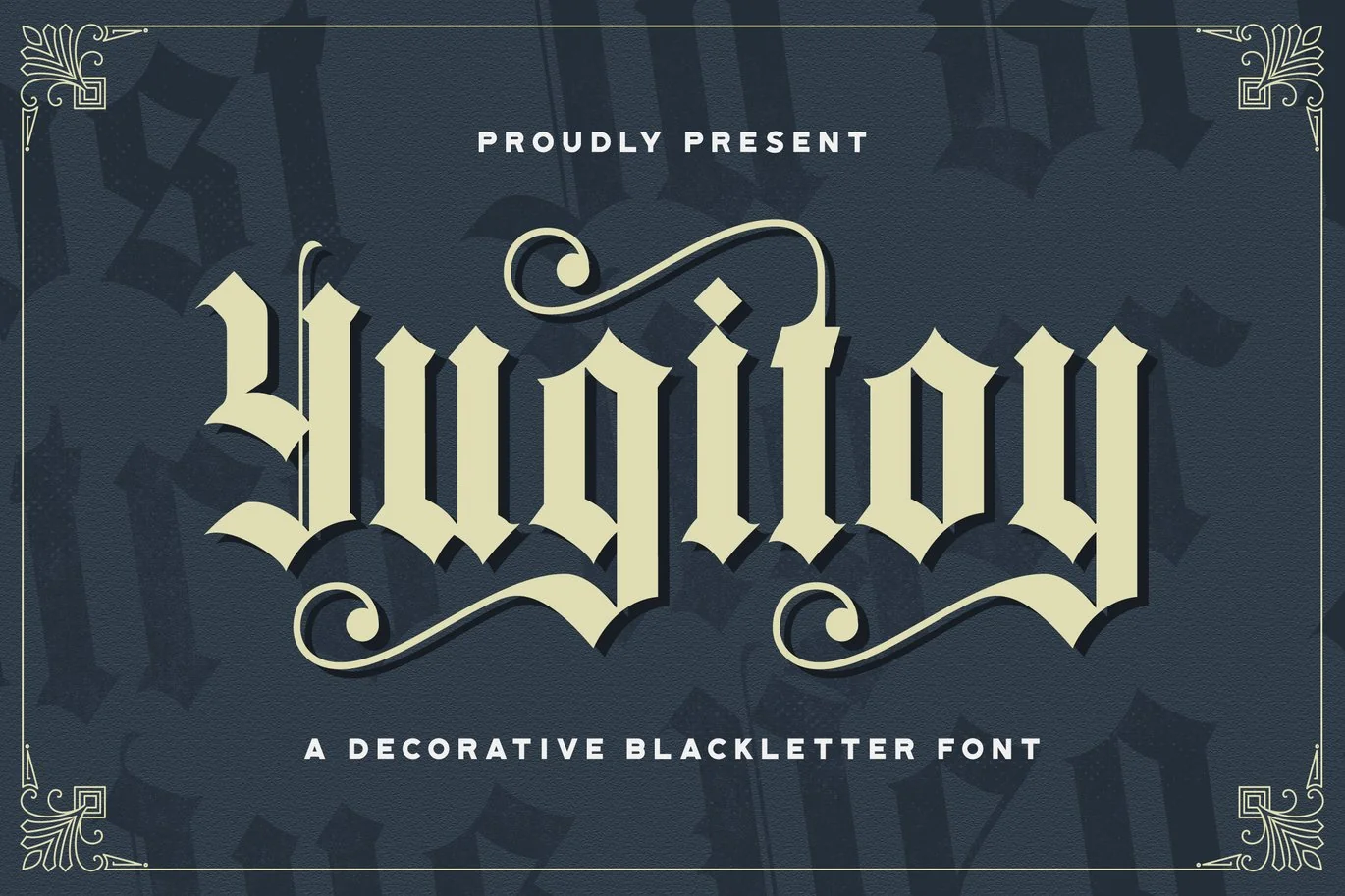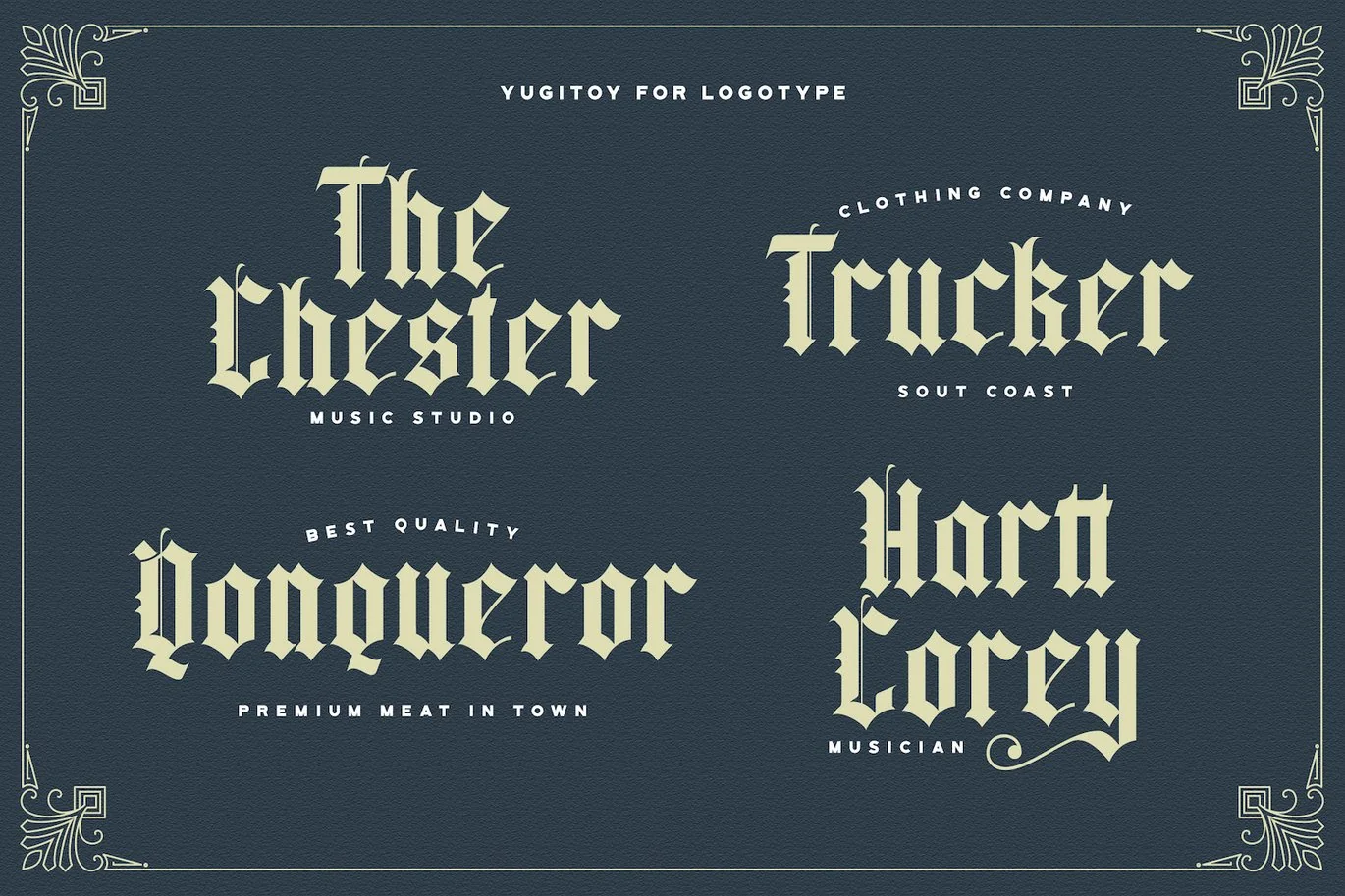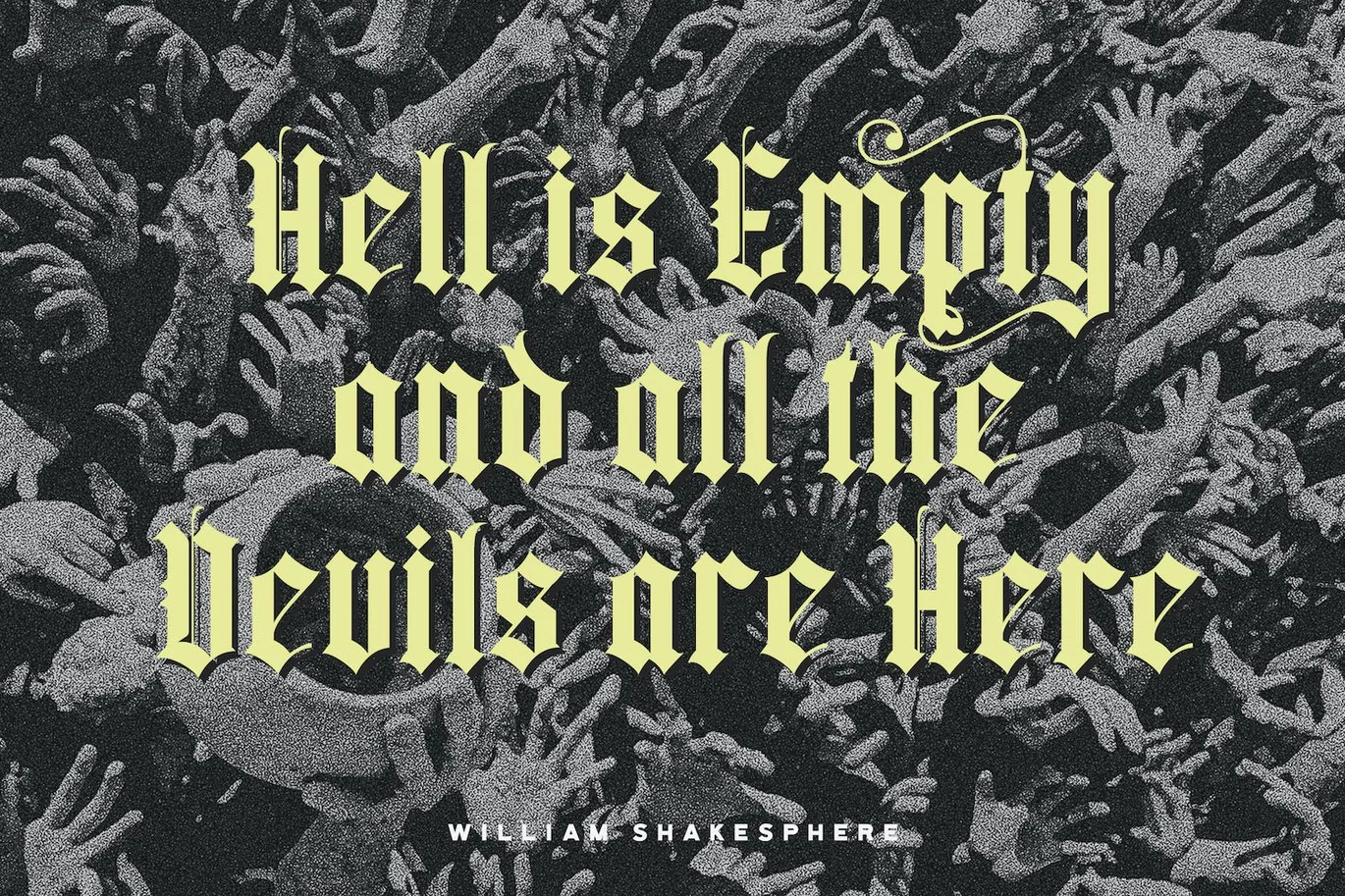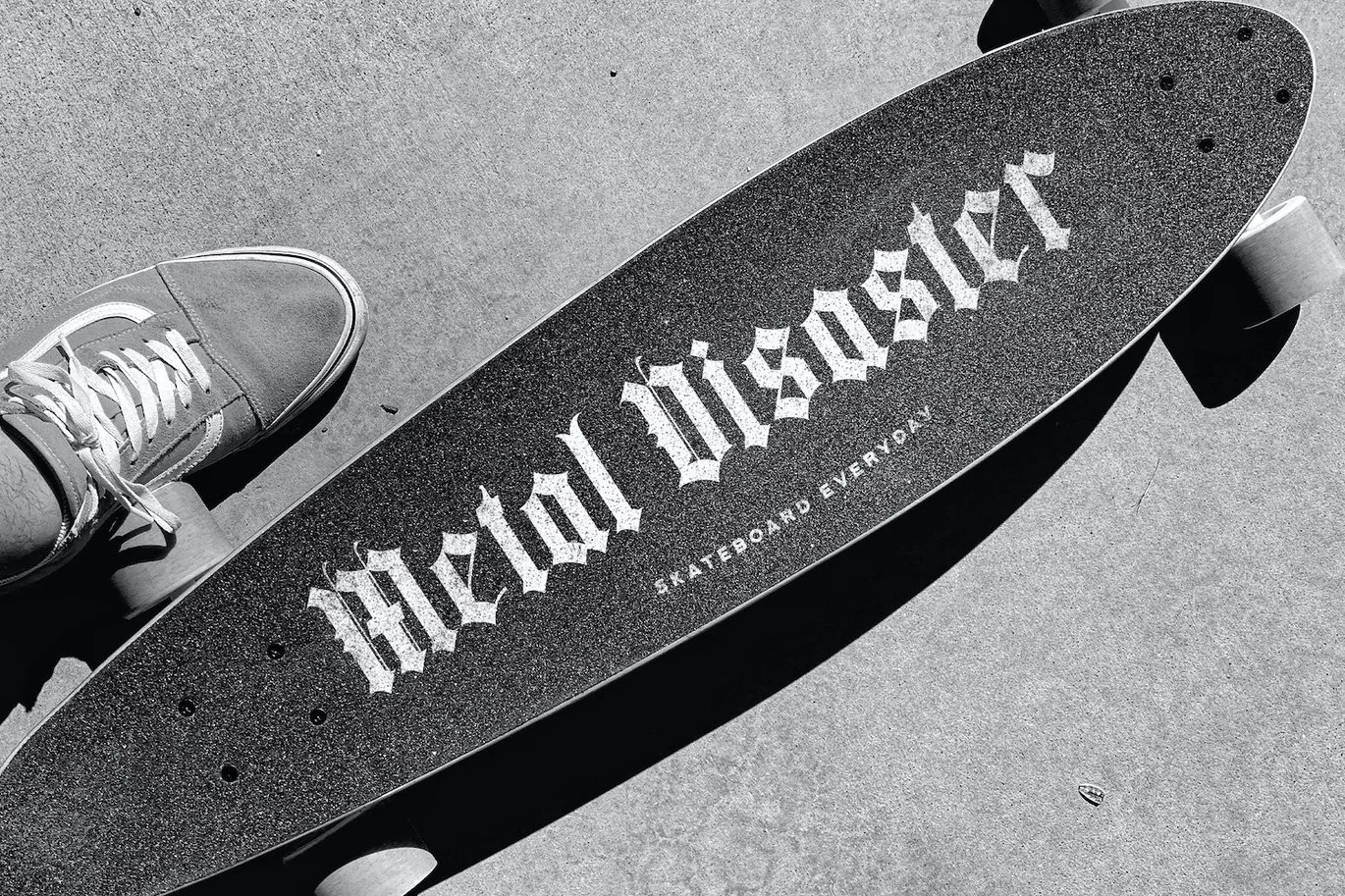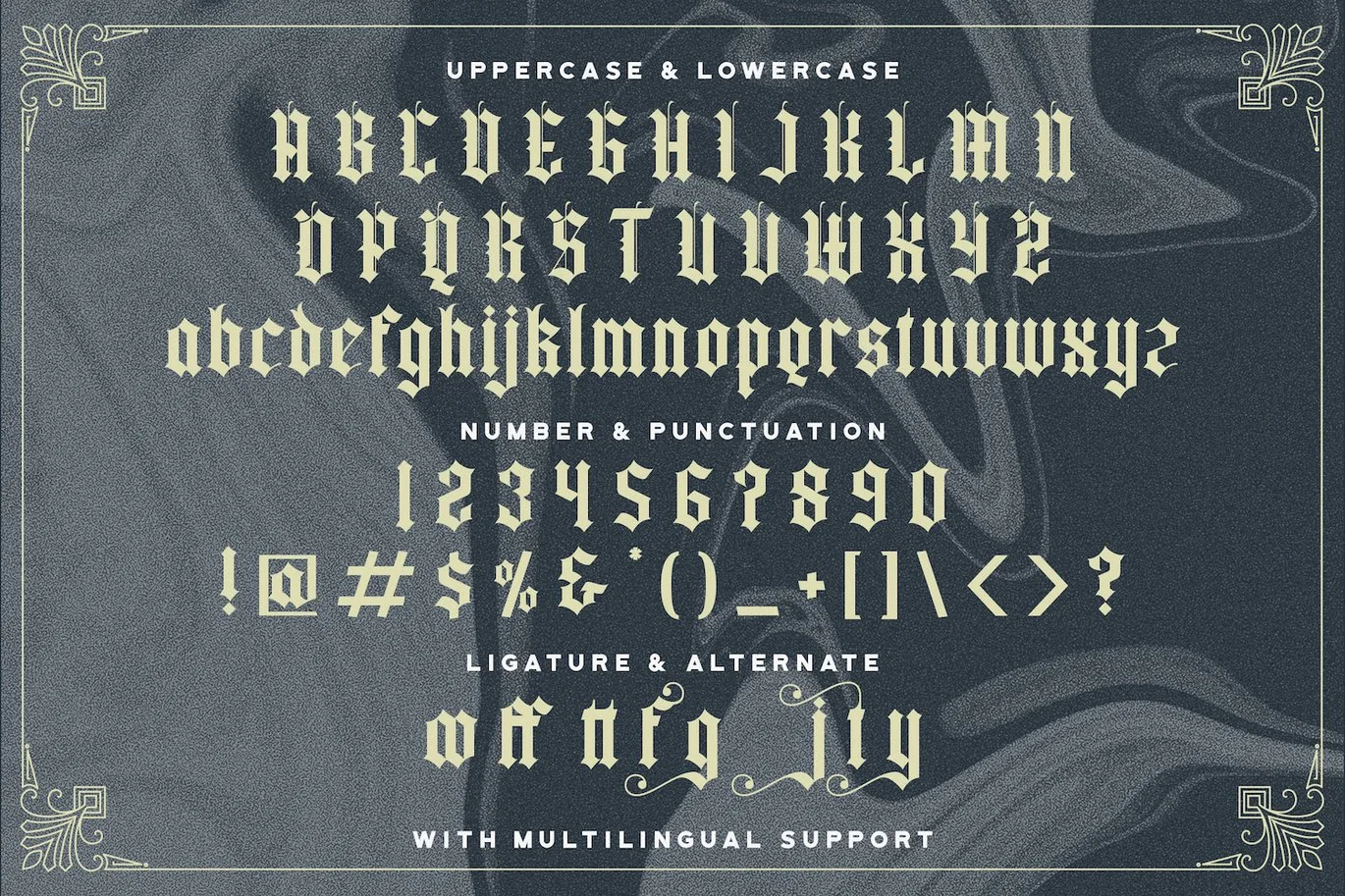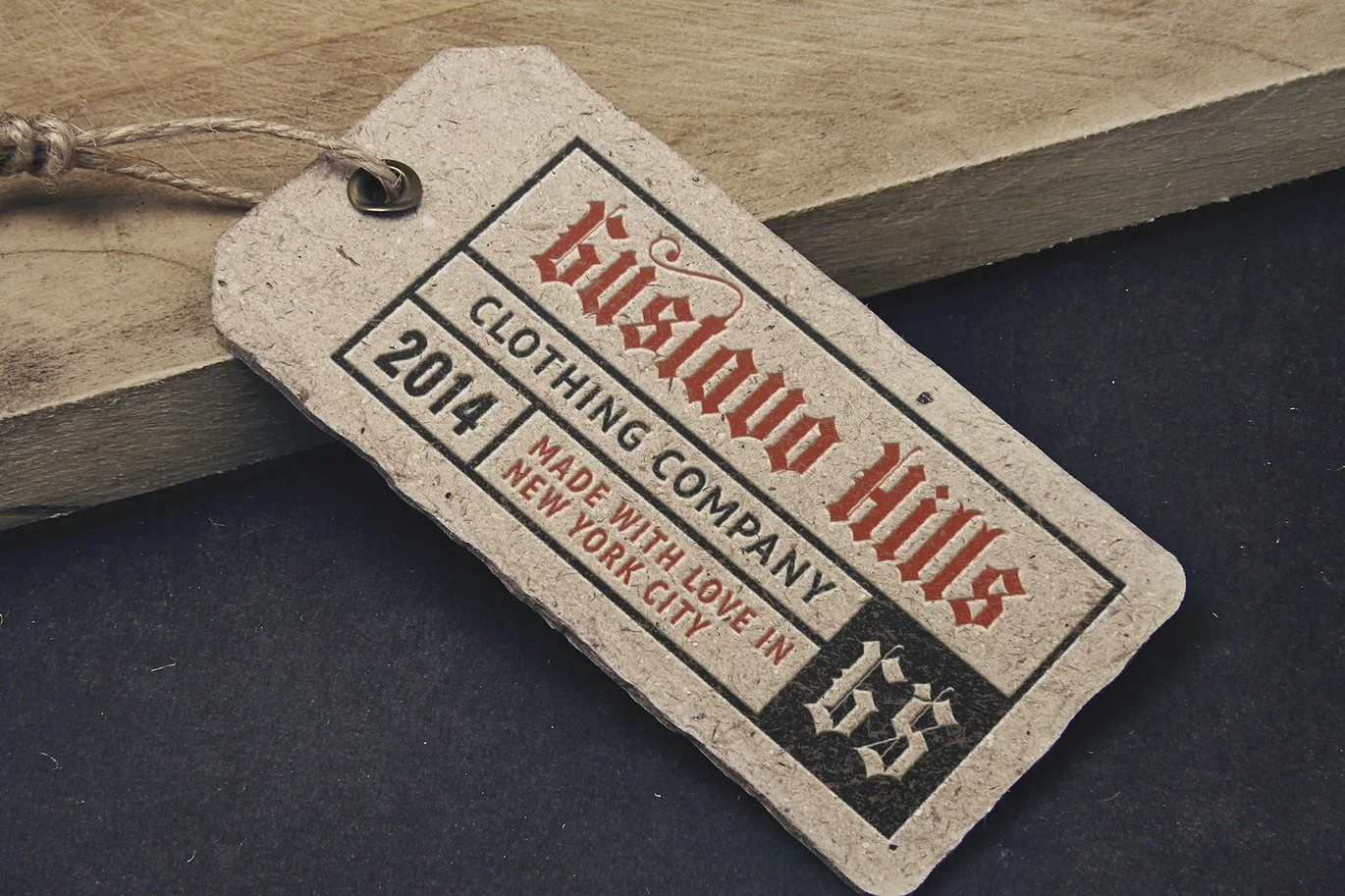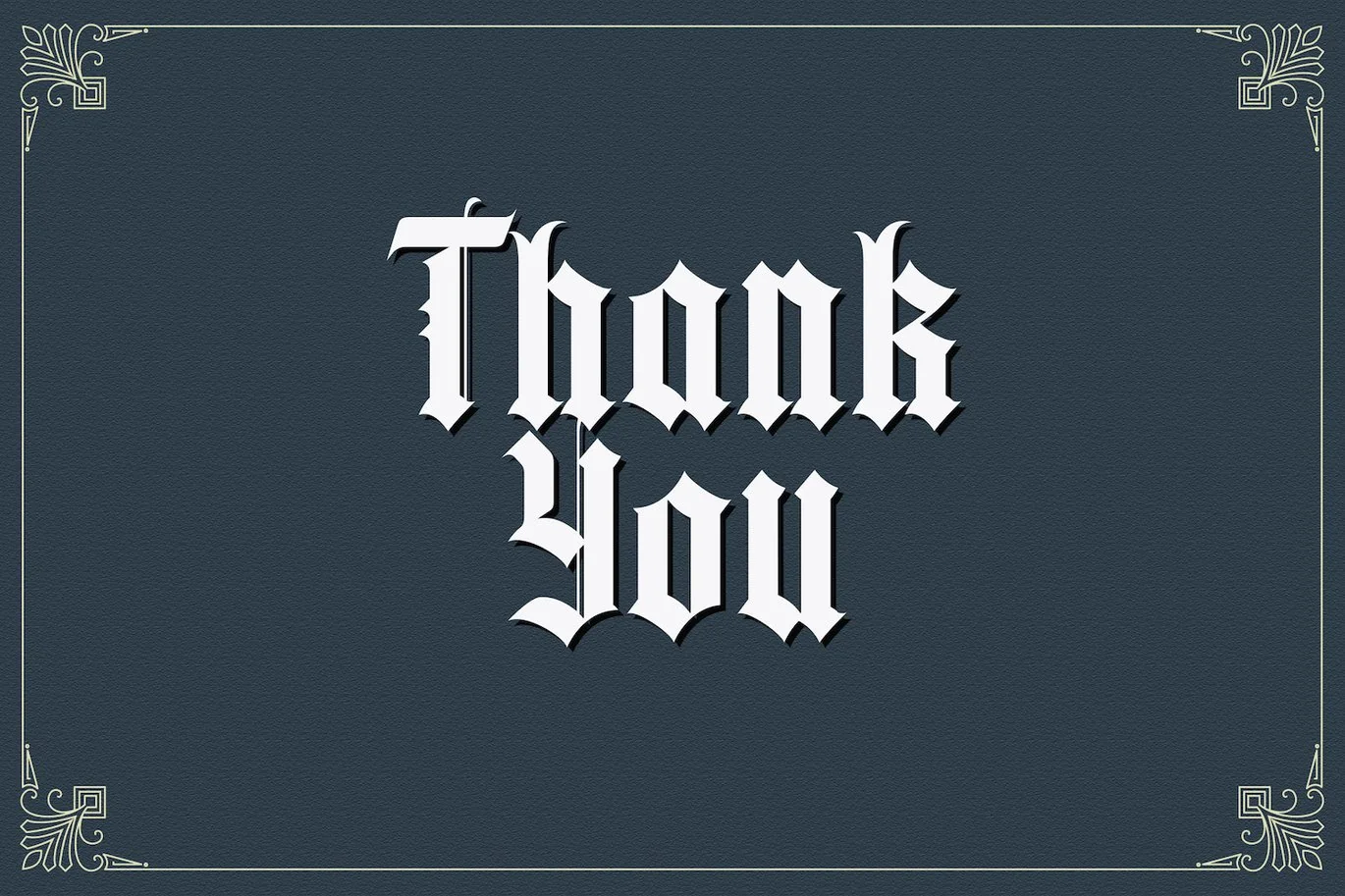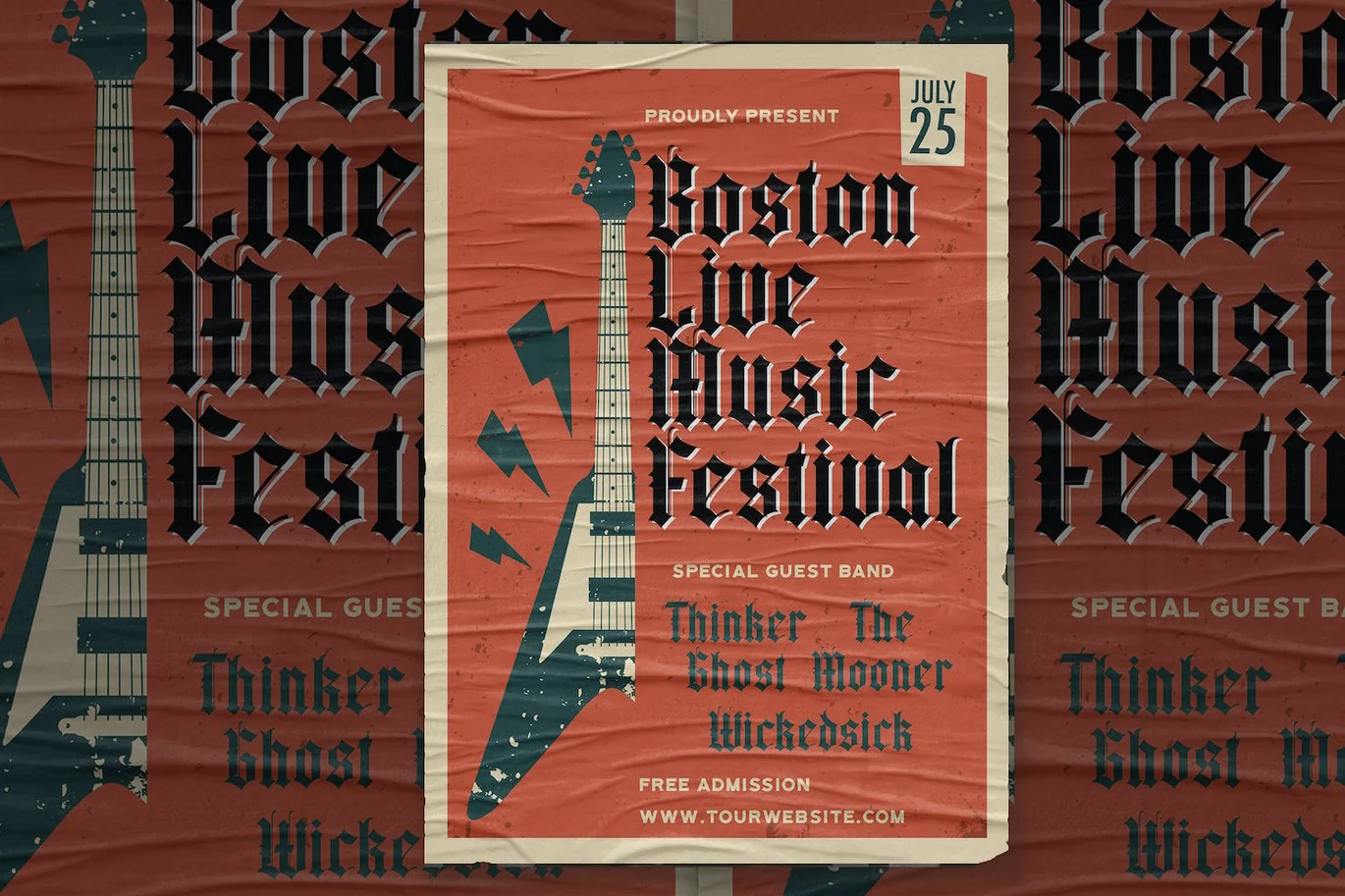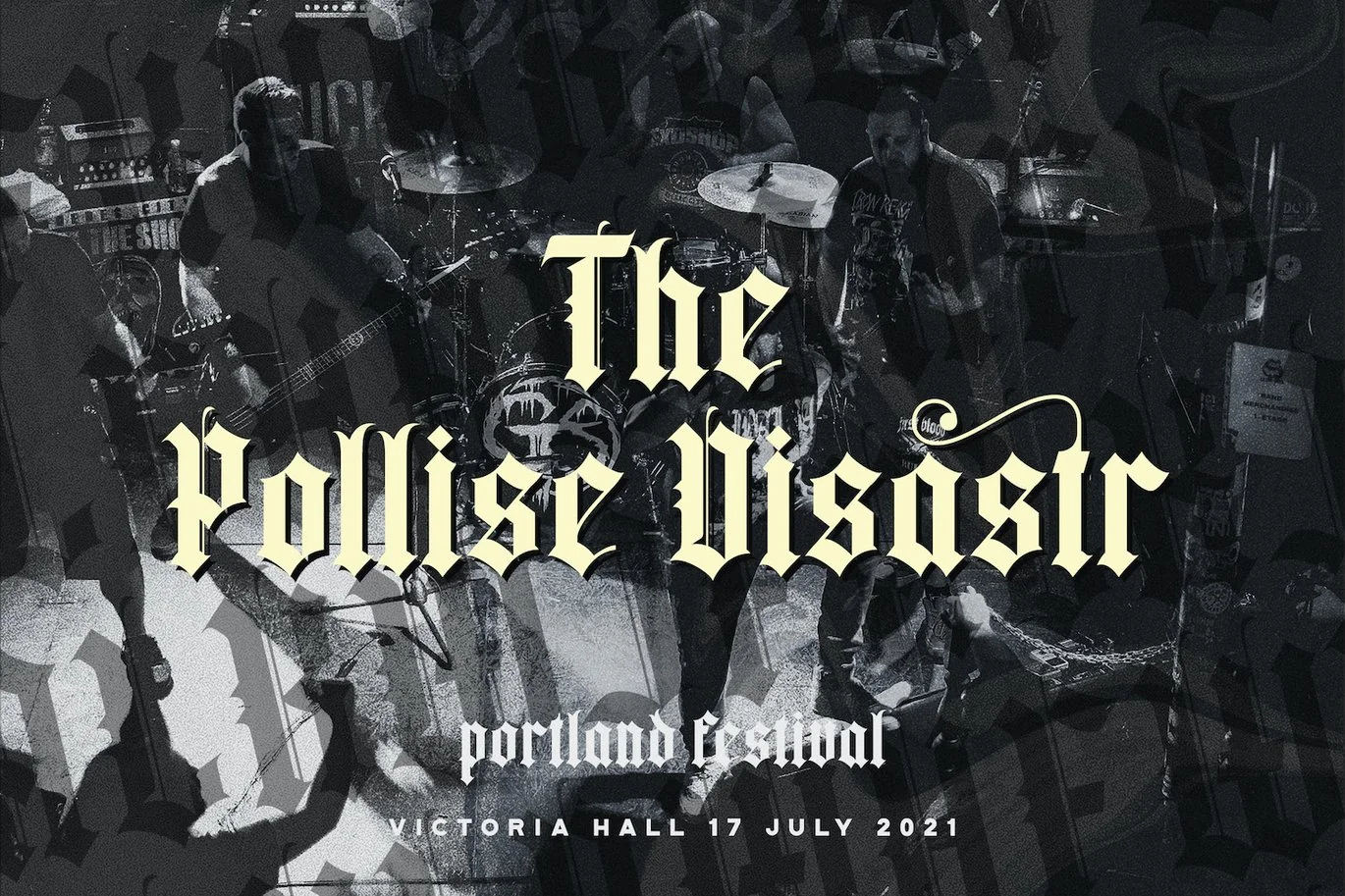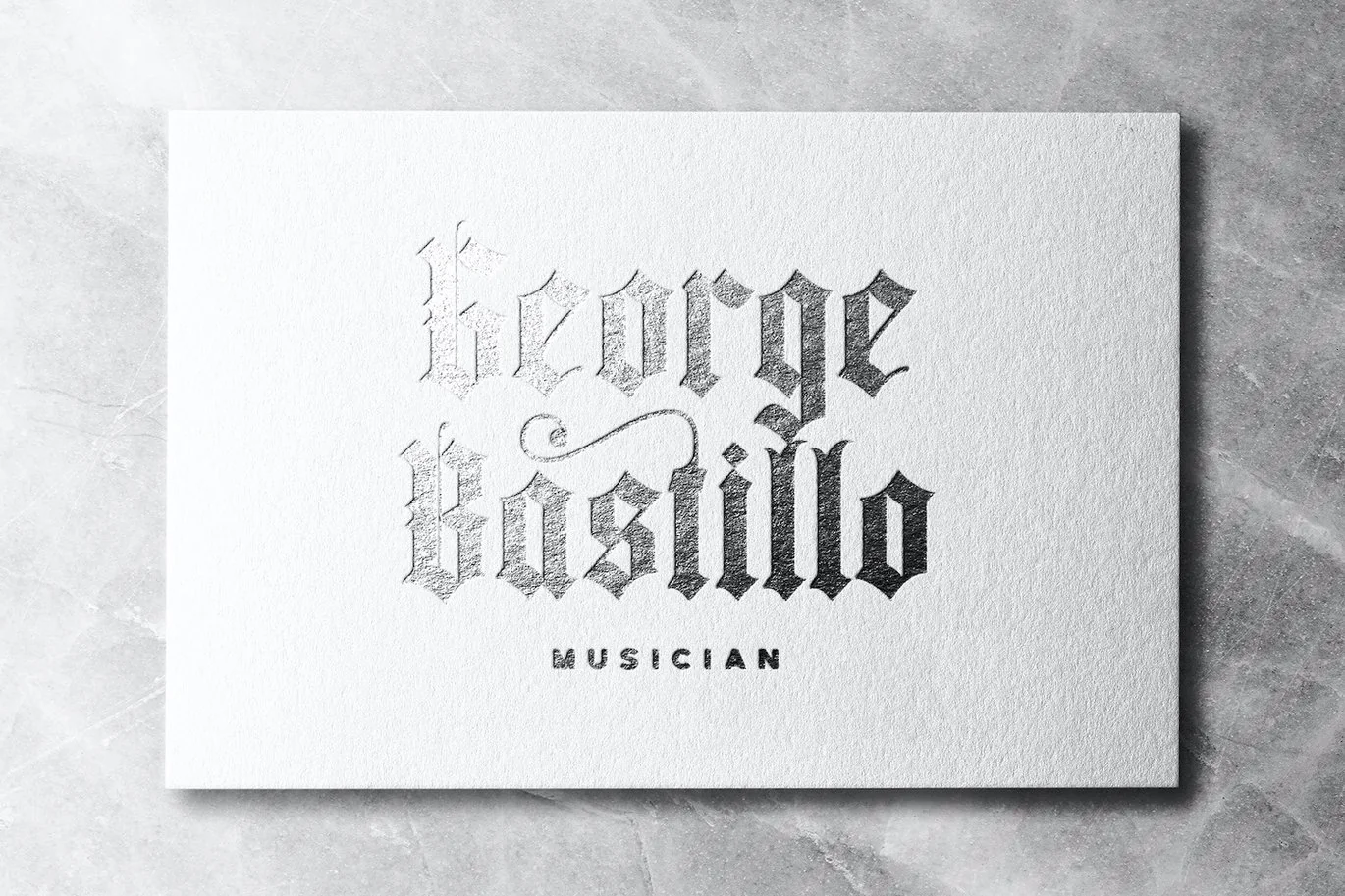
Yugitoy – Blackletter Font
Introducing Yugitoy – Victorian Decorative Font
Yugitoy is a unique, stylish and elegant vintage victorian font. This typeface will look truly outstanding in a wide range of contexts.